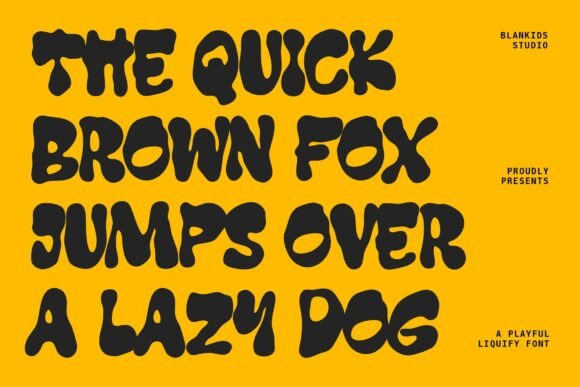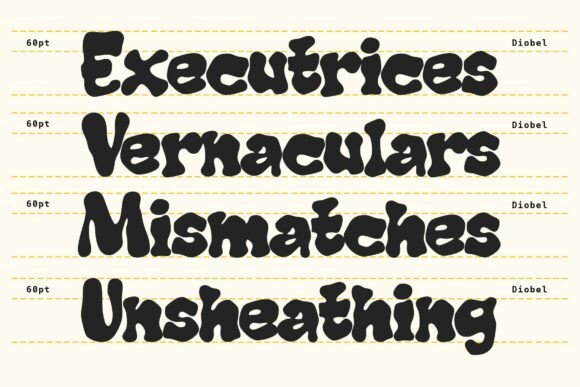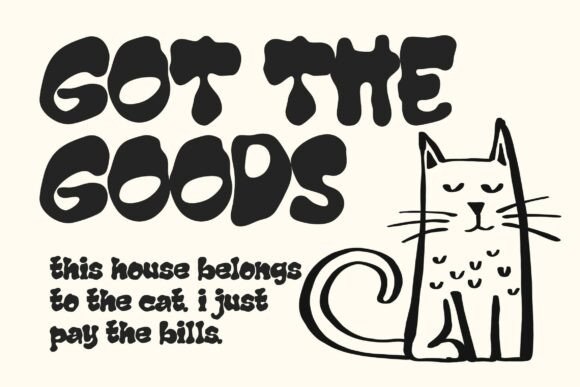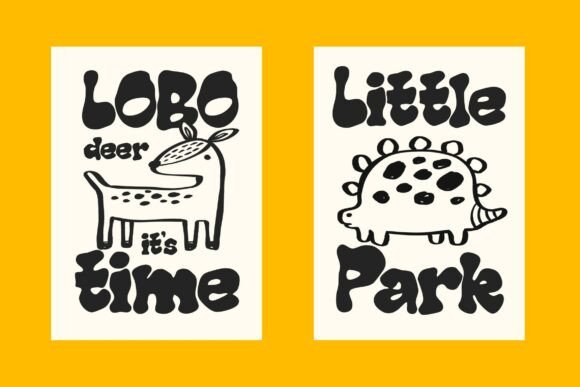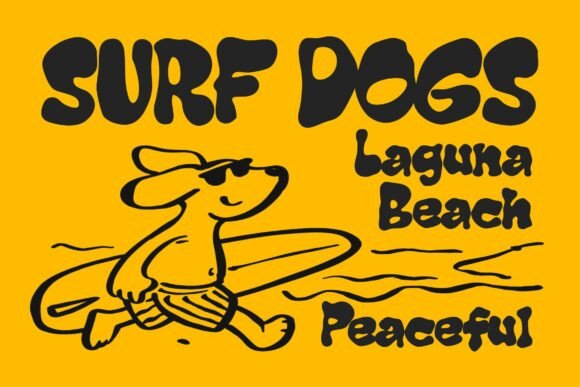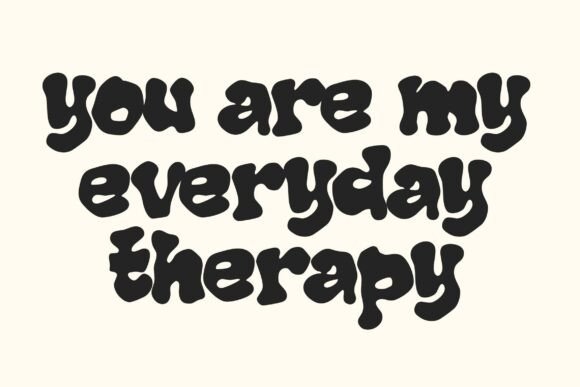
Meet Diobel: The Playful Display Font That Brings Fun and Personality to Your Designs
Are you tired of using the same old fonts in your designs? Do you want to add a touch of personality and charm to your projects? Look no further than Diobel, a playful display font that’s sure to grab attention and bring a smile to your audience’s faces. In this article, we’ll take a closer look at Diobel and explore its features, benefits, and uses.
A Font that’s Full of Personality
Diobel is a display font that’s designed to make a statement. Its rounded, soft, and liquified letterforms give it an organic and lively feel that’s perfect for designs that need to stand out. Every word looks bold, cute, and full of character, making it ideal for projects that require a fun and friendly vibe.
Whether you’re designing a logo, a headline, or a social media post, Diobel is the perfect choice. Its playful and expressive design makes it perfect for a wide range of applications, from children’s products to lifestyle brands. With Diobel, you can add a touch of whimsy and fun to your designs and make them more engaging and memorable.
Key Features of Diobel
So, what makes Diobel so special? Here are some of its key features:
• Rounded and soft letterforms: Diobel’s letterforms are designed to be rounded and soft, giving them a friendly and approachable feel.
• Liquified design: The font’s liquified design makes it look organic and lively, perfect for designs that need to stand out.
• Bold and expressive: Diobel is a bold and expressive font that’s perfect for making a statement.
• Easy to read: Despite its playful design, Diobel is easy to read and understand, making it perfect for use in a wide range of applications.
Benefits of Using Diobel
So, why should you use Diobel in your designs? Here are some of the benefits of using this playful display font:
• Adds personality to your designs: Diobel adds a touch of personality and charm to your designs, making them more engaging and memorable.
• Perfect for fun and friendly designs: Diobel is perfect for designs that require a fun and friendly vibe, such as children’s products, lifestyle brands, and social media posts.
• Versatile: Diobel can be used in a wide range of applications, from logos and headlines to social media posts and more.
Who is Diobel for?
Diobel is perfect for designers, crafters, and anyone who wants to add a touch of personality and charm to their designs. Here are some examples of who might use Diobel:
• Graphic designers: Graphic designers who want to create fun and engaging designs for their clients will love Diobel.
• Crafters: Crafters who want to add a personal touch to their projects will love Diobel’s playful and expressive design.
• Social media managers: Social media managers who want to create engaging and memorable social media posts will love Diobel.
• Small business owners: Small business owners who want to add a touch of personality to their branding will love Diobel.
Font Name Diobel Font
Author Blankids Studio
In conclusion, Diobel is a playful display font that’s perfect for designers, crafters, and anyone who wants to add a touch of personality and charm to their designs. Its rounded, soft, and liquified letterforms make it perfect for designs that need to stand out in a fun way. With its ease of use, versatility, and bold and expressive design, Diobel is the perfect choice for anyone who wants to create fun and engaging designs.